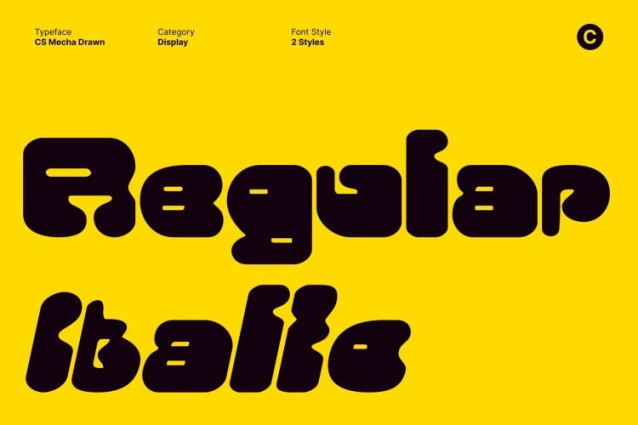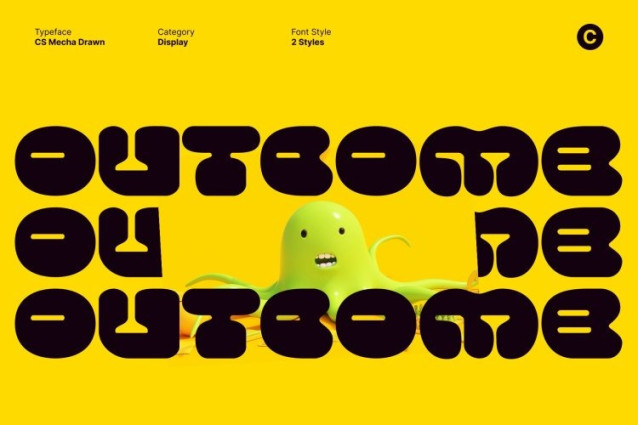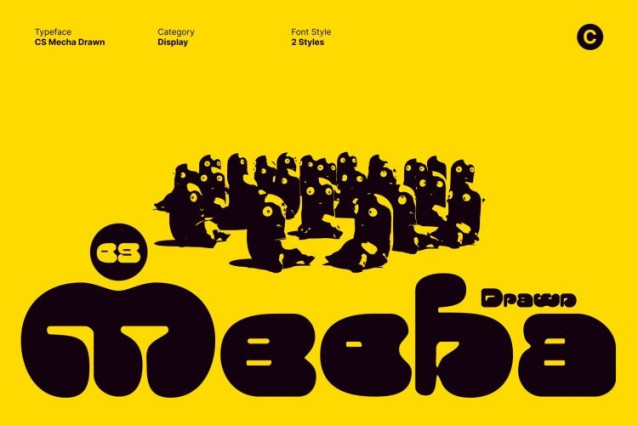
CS Mecha Drawn Font
CS Mecha Drawn Font This is a bold Y2K-inspired display font that radiates retro-futuristic energy through playful, bubble-like letterforms and expressive hand-drawn details. Rooted in the visual culture of the early 2000s, this font captures the optimism, fun, and digital excitement of the Y2K era. The drawn texture adds an organic, handcrafted feel that enhances its personality while keeping the look lively authentic.
Bold Bubble Shapes with Playful Attitude
The rounded, oversized forms of create an instantly eye-catching presence. Exaggerated curves and soft edges give the font a friendly, inflated appearance that feels joyful and energetic. Its bold structure ensures strong visibility, making it perfect for designs that demand attention and expressive impact.
Retro Funk Meets Futuristic Style
This font blends nostalgic Y2K charm with a forward-looking attitude. Inspired by early digital graphics, pop culture, and fashion trends of the new millennium, the font delivers a funky visual tone that feels experimental and free-spirited. The drawn effect adds warmth and character, preventing the design from feeling overly polished or rigid. This balance creates a font that feels both nostalgic and refreshingly modern.
Perfect for Bold, Youthful Creative Projects
Designed for expressive applications, works beautifully in music posters, digital artwork, fashion campaigns, apparel graphics, social media visuals, and bold branding projects. Its playful personality makes it ideal for youth-oriented designs and creative concepts that celebrate individuality fun.